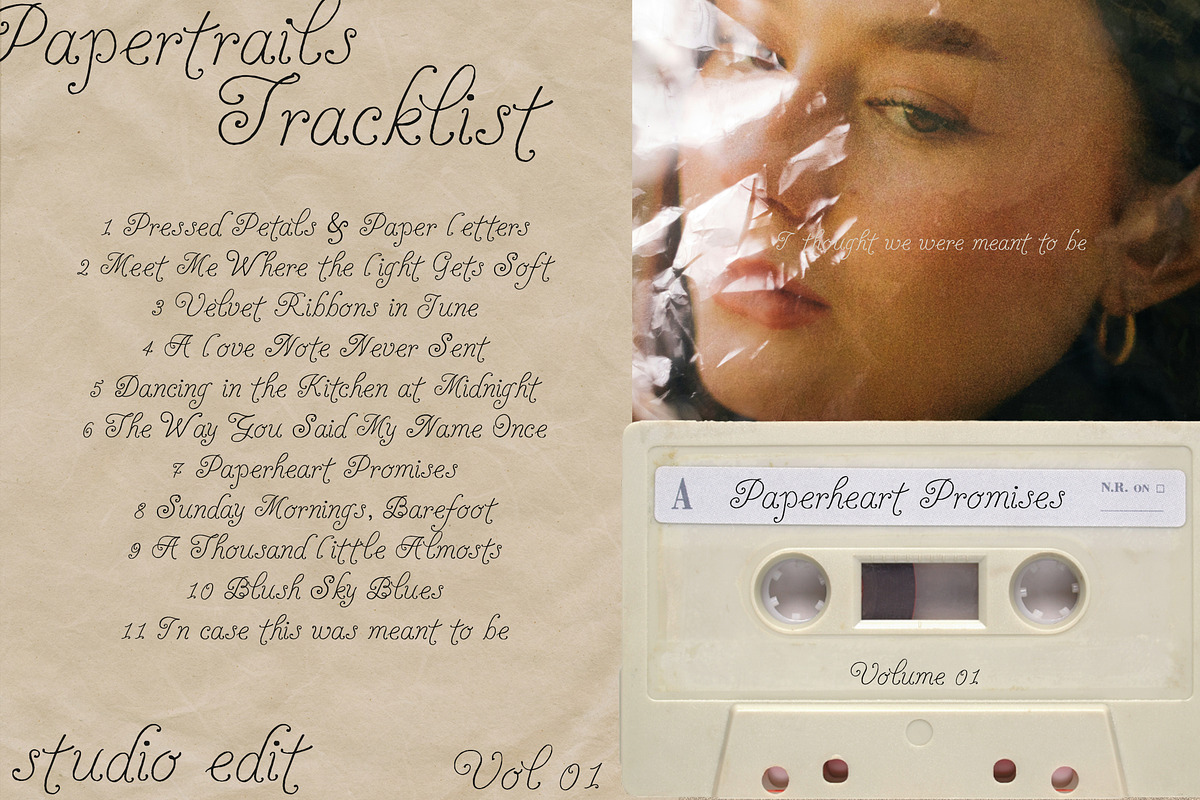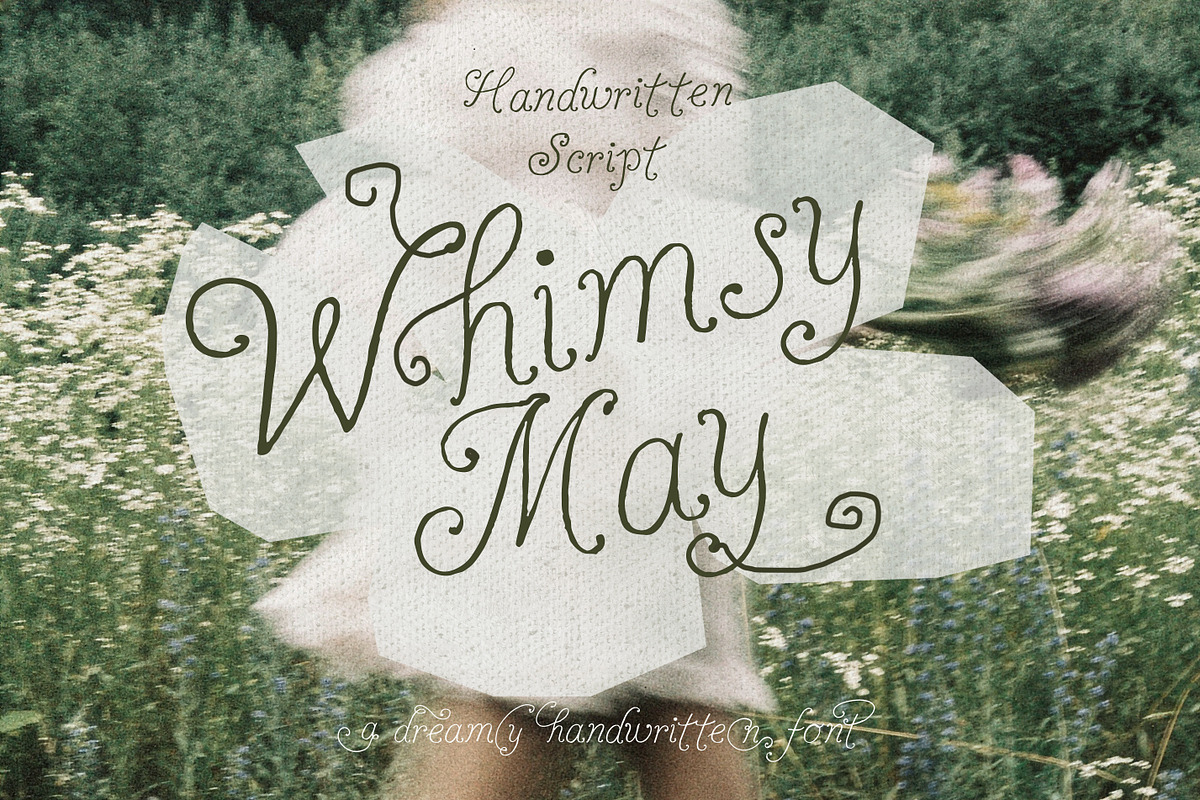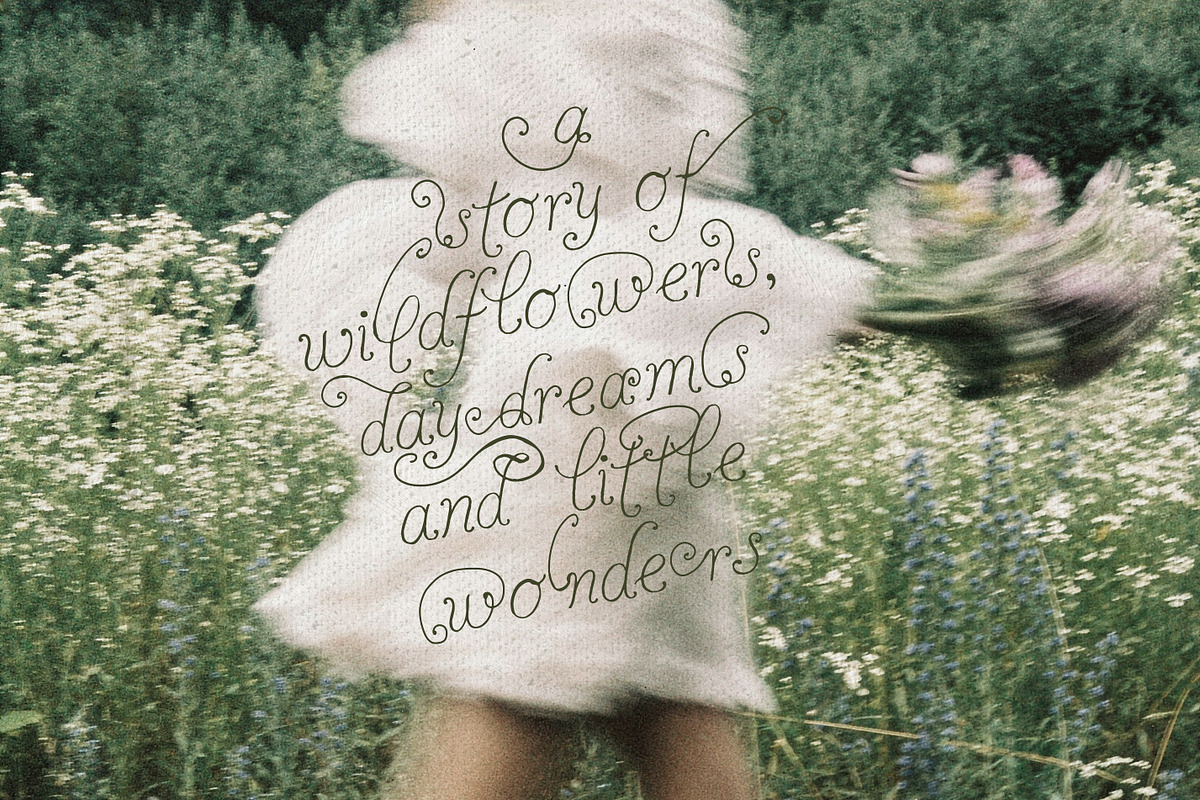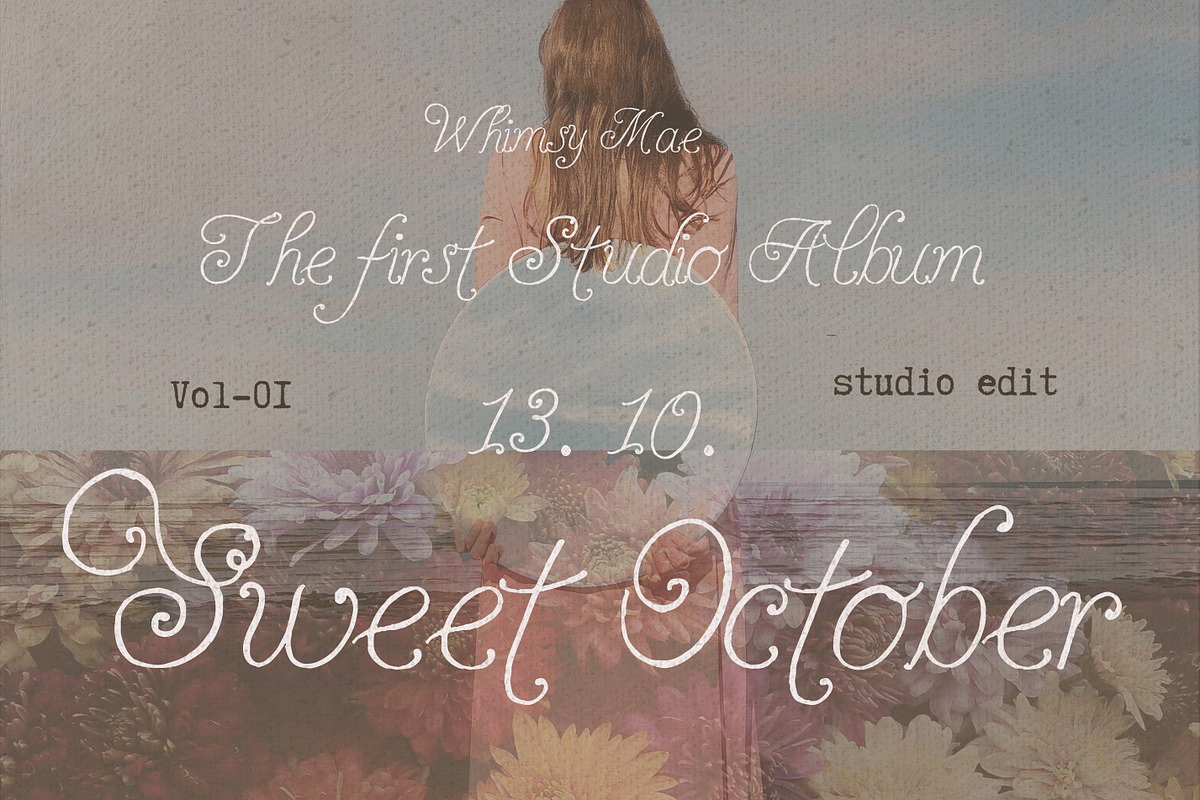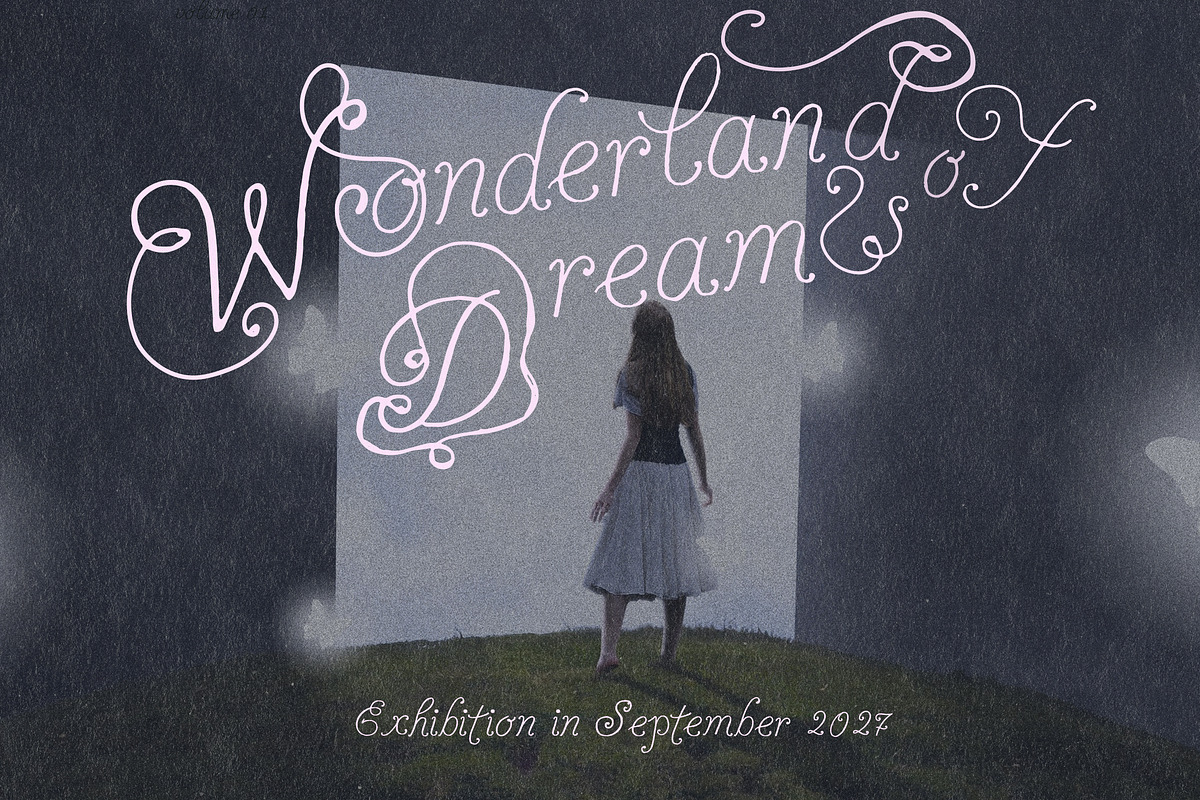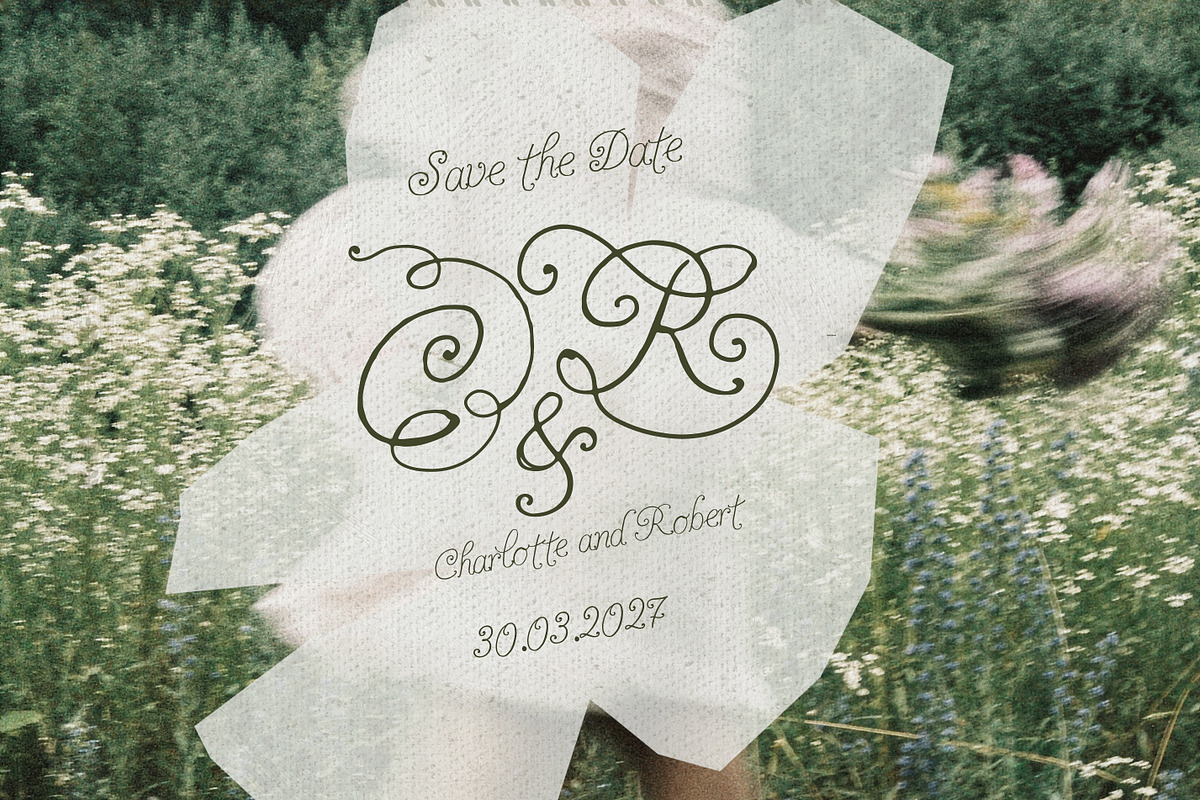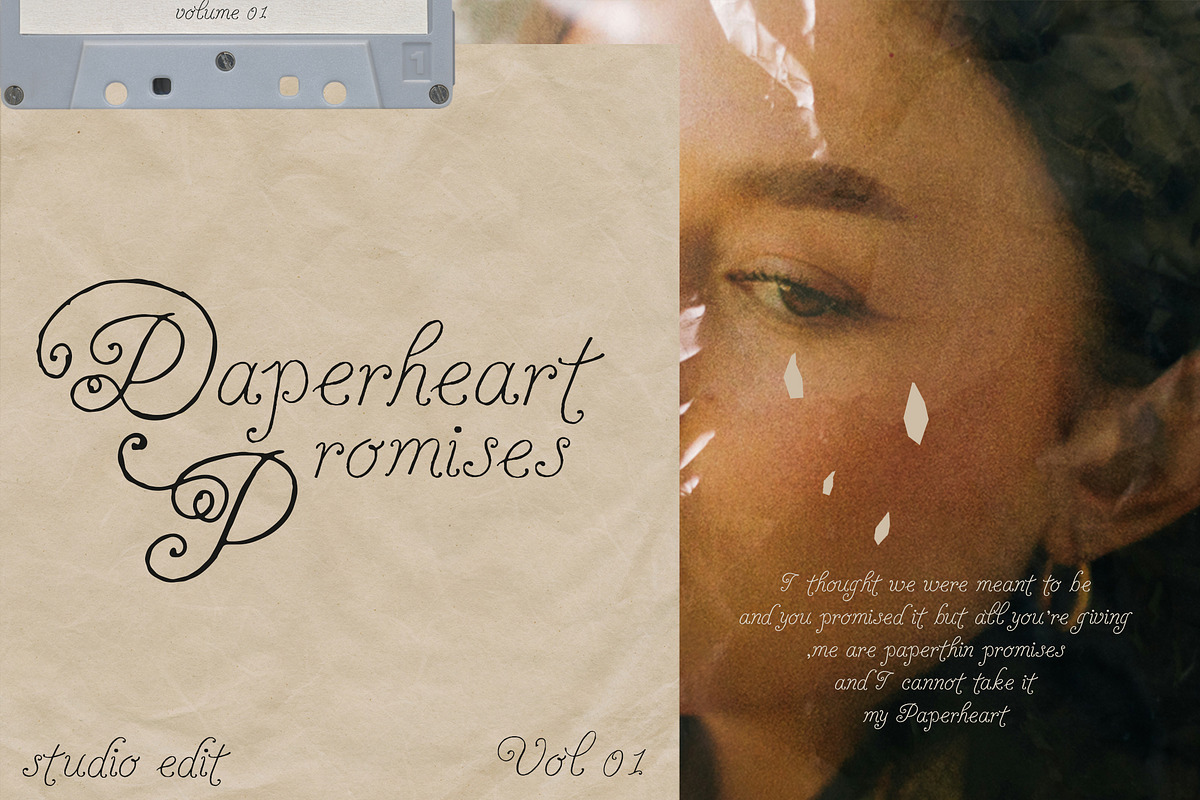
Handwritten Whimsy Romantic Script
A carefully hand-lettered script full of whimsy and personality - that’s Whimsy Mae. A magical font that effortlessly turns your work into something right out of a fairytale.
With a wide range of alternates, you can shape every word to feel natural, expressive, and uniquely yours.
Perfect for wedding stationery, love letters, branding for dreamy and feminine businesses, packaging, social media, or anything that calls for a soft, romantic touch.